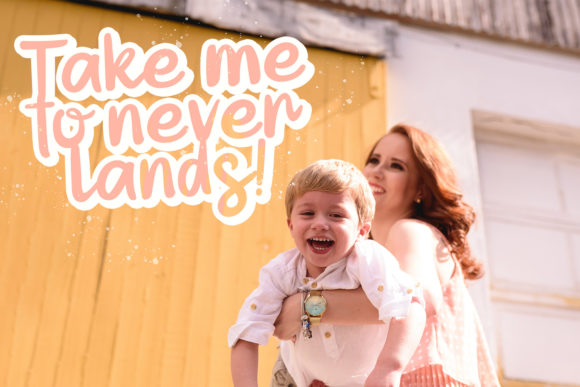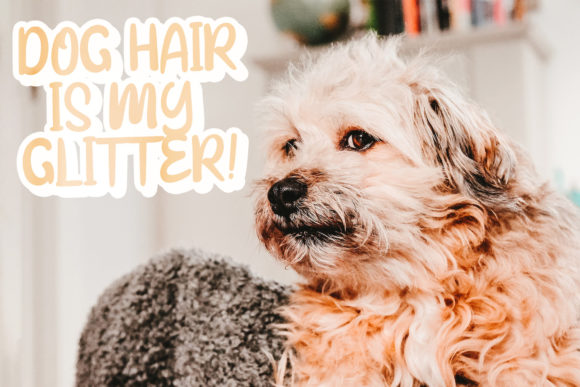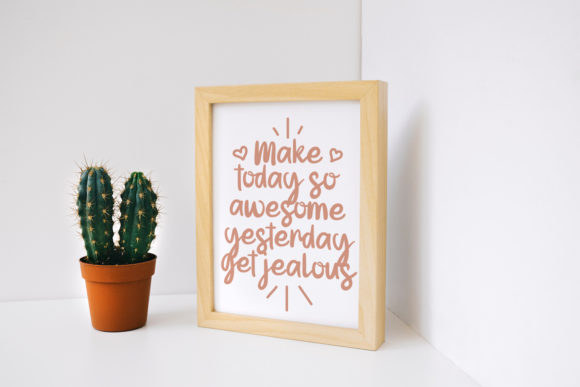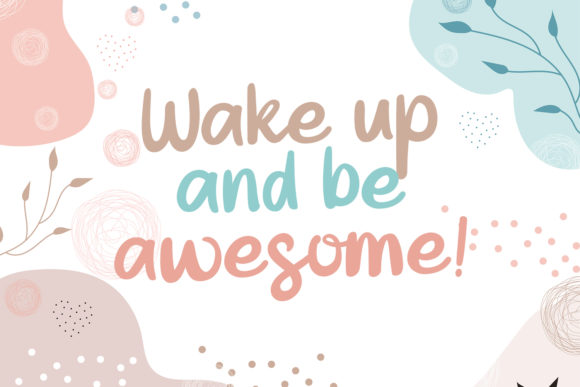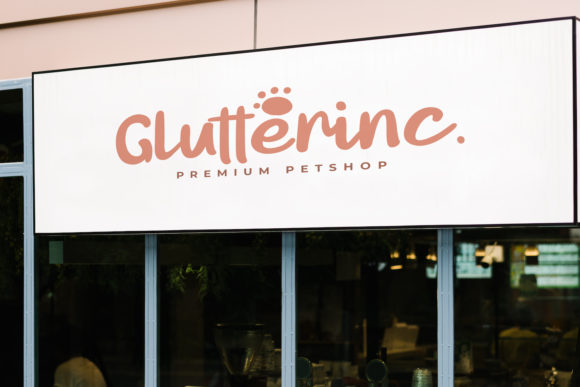
Cinta Suci Font: Elevate Your Designs with a Lovely and Fresh Style
In the world of typography, fonts play a crucial role in conveying the tone and personality of a design. For designers and crafters looking to add a touch of elegance and playfulness to their projects, the Cinta Suci font is an excellent choice. This fancy display font boasts a lovely and fresh style, making it perfect for modern and playful designs.
What is Cinta Suci Font?
Cinta Suci is a versatile font designed to add a unique flair to various design projects. Its lovely and fresh style makes it an ideal choice for designers seeking to create visually appealing and engaging content. Whether you’re working on a modern or playful design, Cinta Suci offers endless possibilities to elevate your work.
Key Features of Cinta Suci Font
- Lovely and Fresh Style: Cinta Suci’s unique style adds a touch of elegance and playfulness to any design.
- Versatile: This font works well in various design projects, from modern to playful designs.
- Fancy Display Font: Cinta Suci is perfect for headings, titles, and other display purposes.
Uses of Cinta Suci Font
Cinta Suci’s versatility makes it suitable for a wide range of design projects, including:
- Logos and Branding: Create a lasting impression with Cinta Suci’s unique and elegant style.
- Posters and Flyers: Add a touch of playfulness and elegance to your promotional materials.
- Social Media Graphics: Elevate your social media presence with Cinta Suci’s fresh and modern style.
- Wedding and Party Decor: Use Cinta Suci to create beautiful and memorable wedding and party decorations.
Benefits of Using Cinta Suci Font
By incorporating Cinta Suci into your designs, you can:
- Enhance Visual Appeal: Cinta Suci’s lovely and fresh style adds a unique touch to your designs.
- Increase Engagement: The font’s playful and elegant style can help capture your audience’s attention.
- Stand Out from the Crowd: Cinta Suci’s versatility and uniqueness make it an excellent choice for designers looking to differentiate themselves.
Tips for Using Cinta Suci Font
To get the most out of Cinta Suci, consider the following tips:
- Pair with Complementary Fonts: Combine Cinta Suci with other fonts to create a unique and visually appealing typography.
- Experiment with Colors: Try out different colors to find the perfect match for your design.
- Play with Sizes and Styles: Experiment with various sizes and styles to add depth and interest to your design.
Cinta Suci font is a fantastic addition to any designer’s toolkit. Its lovely and fresh style, versatility, and endless possibilities make it an excellent choice for modern and playful designs. By incorporating Cinta Suci into your projects, you can elevate your designs, enhance visual appeal, and increase engagement. So why wait? Explore the possibilities of Cinta Suci font today and take your designs to the next level!